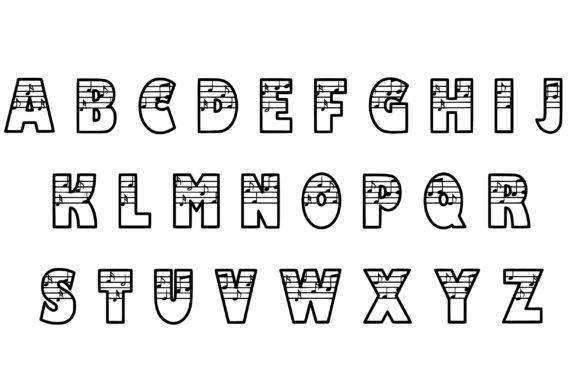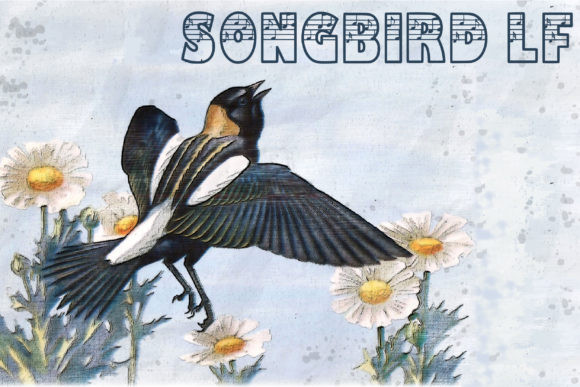
Songbird LF Font
Songbird LF is a beautiful decorative font that is inspired by music. It quietly evokes the style of music sheets and musical notation.